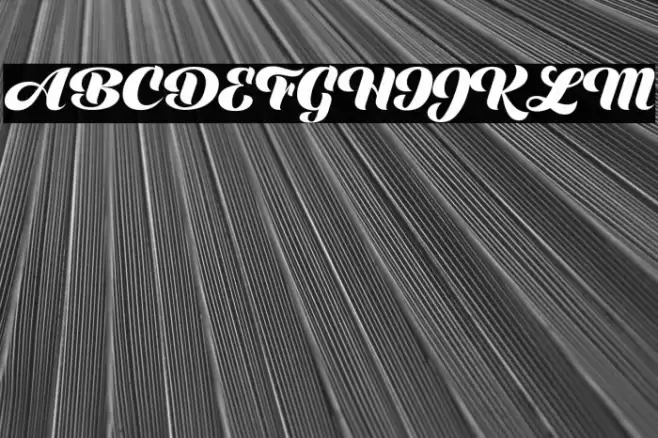
Shine Personal Use Font
Shine Personal Use Description
This font features a bold and elegant script style with smooth, flowing curves and a strong presence. The uppercase letters are characterized by their sweeping, dramatic flourishes, while the lowercase letters maintain a consistent, rounded form. The overall design is reminiscent of classic calligraphy, offering a sense of sophistication and grace. The numerals and special characters are crafted with the same attention to detail, ensuring a cohesive look across all elements. This font is ideal for projects that require a touch of elegance and style, such as invitations, branding, and decorative headlines.
A bold, elegant script font with flowing curves and classic calligraphy style from Uncategorized fonts.
- Proposed Projects: Ideal for wedding invitations, luxury branding, decorative headlines, and elegant posters.
- Overall Style: Classic
- Use Case: Headlines, Logos, Invitations